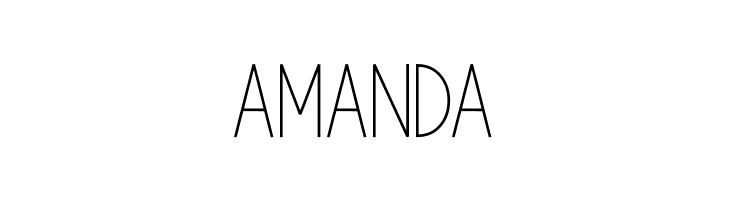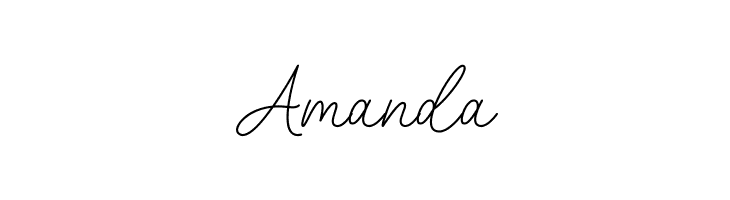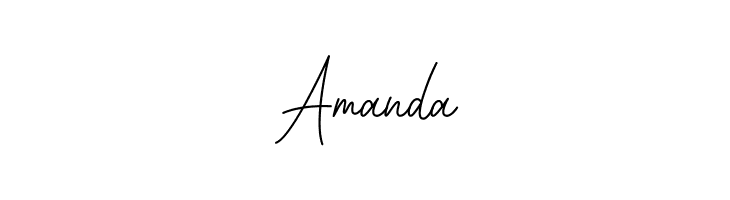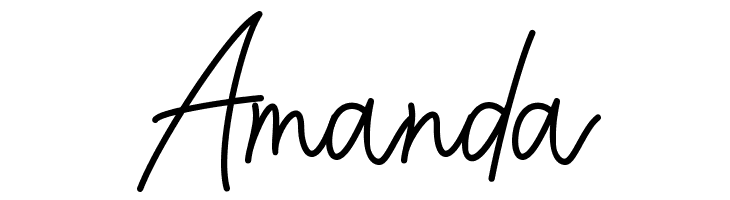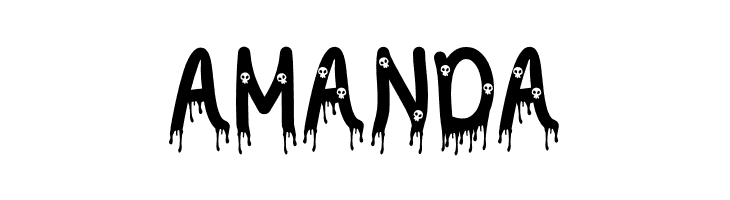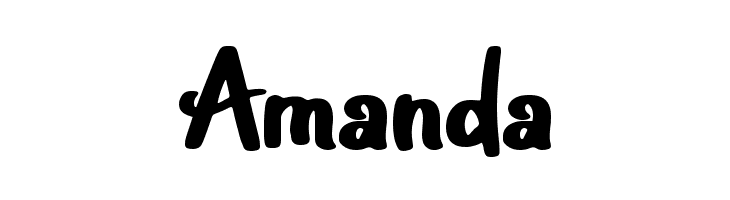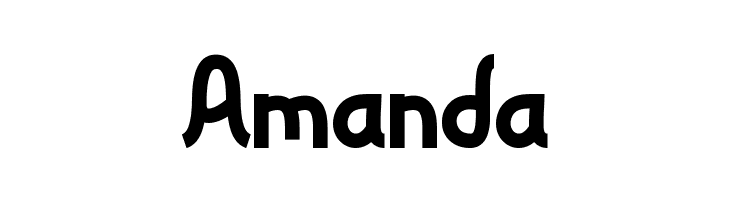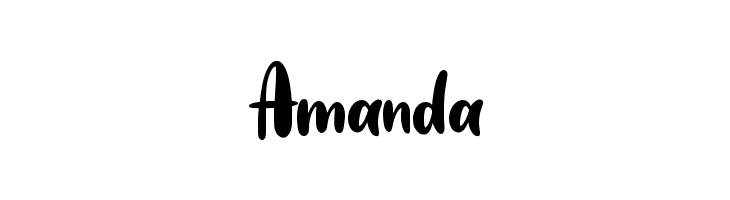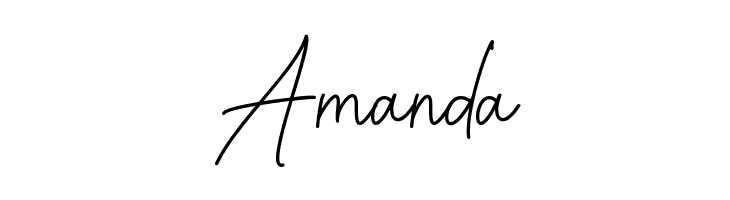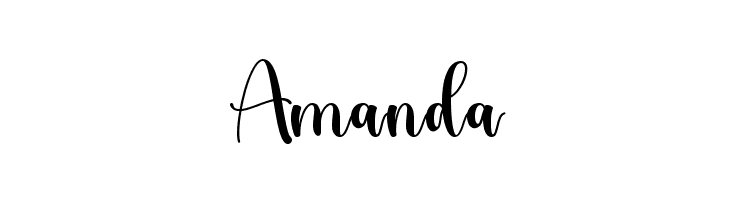
A bold, decorative font with a playful, textured design.
A bold, textured font with a mosaic-like pattern, ideal for decorative use.
A bold, angular font with a modern, geometric style.
A bold, decorative font with a skeletal, Halloween-inspired design.
A bold, decorative font with lip graphics integrated into each letter.
A clean, minimalist font with thin, uniform strokes and a modern design.
A charming script font with flowing, connected letters and elegant flourishes.
A charming, handwritten font with tall, narrow letters and a clean appearance.
A graceful and fluid script font with interconnected, cursive letters.
A lively and elegant script font with fluid, connected letterforms and decorative flourishes.
A playful, handwritten font with flowing, cursive-like strokes and a modern aesthetic.
A modern, geometric sans-serif font with clean lines and a slightly condensed style.
A bold, geometric font with a strong, industrial feel.
A playful, handwritten font with flowing, interconnected letterforms.
A bold, dripping font perfect for horror-themed designs.
A playful, bold script font with a hand-drawn, whimsical style.
A bold, rounded font with a modern and playful style.
A bold, playful font with a hand-drawn, dynamic style.
A lively, fluid handwritten font with smooth curves and a personal touch.
A bold, flowing script font with a lively, tropical vibe.
An elegant, flowing script font with bold, sweeping uppercase and smooth cursive lowercase letters.
A playful, handwritten-style font with a whimsical and energetic appearance.
A lively, flowing handwritten font with elegant, elongated letterforms.
A playful and casual handwritten font with fluid strokes and a whimsical feel.
A playful, decorative script font with heart motifs and bold, flowing characters.
A bold, expressive script font with a playful, handwritten style.
A playful and elegant script font with a handwritten style.
A playful and whimsical script font with a handwritten style.
A playful and elegant script font with flowing, cursive letters.
A bold, geometric font with angular, futuristic design elements.
A playful, bold handwritten font with rounded edges and a casual style.
A whimsical and elegant script font with flowing, interconnected letters and playful loops.
A playful and whimsical script font with a handwritten style.
A bold, jagged font with a spooky, dynamic design.